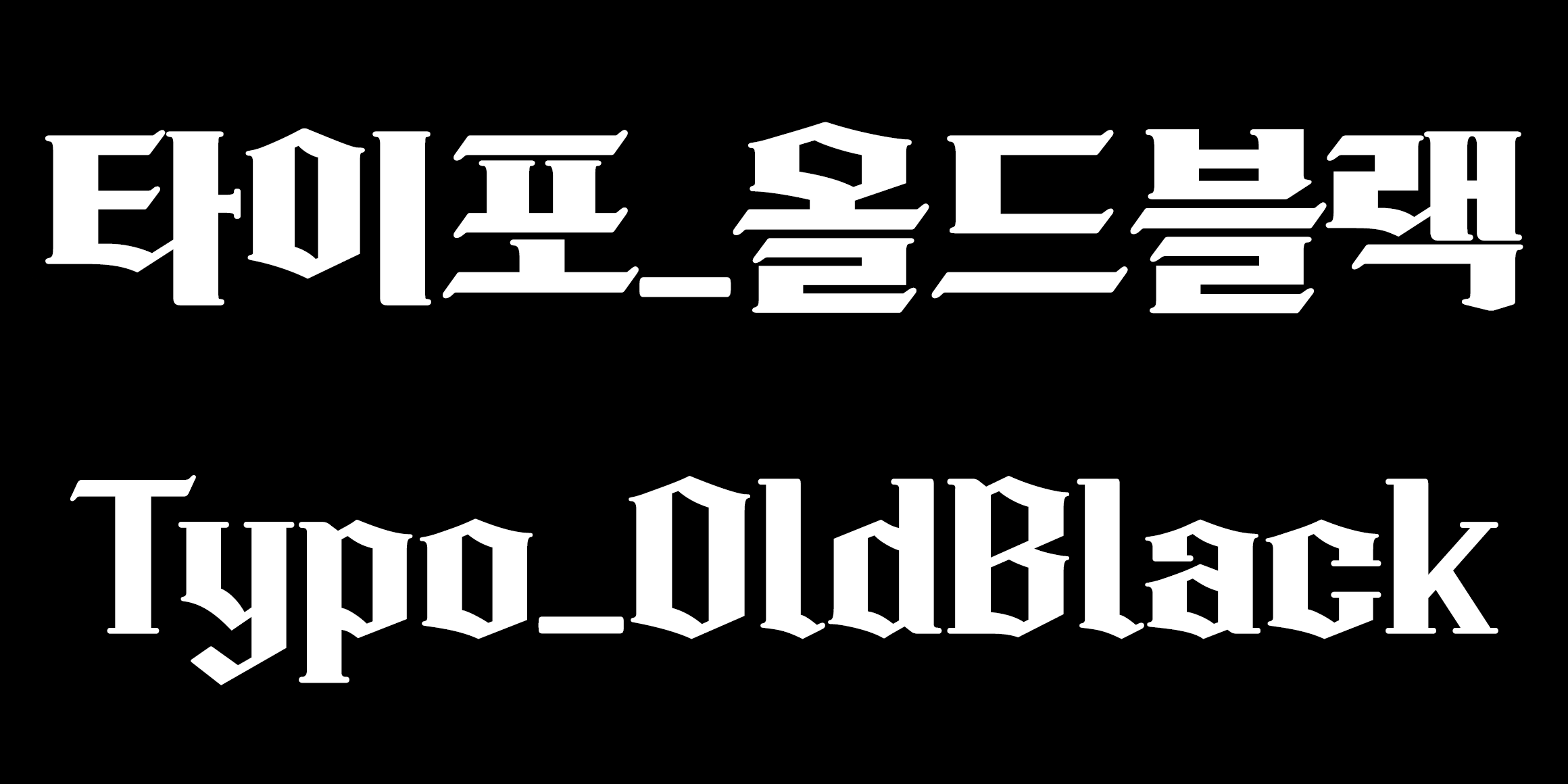
Each letter, such as ㅅ, ㅇ, and ㅈ, has a unique shape and sharpness becomes the point, creating tension and a strong impression.
It is recommended to use it for headlines as it attracts attention due to the change in thickness of horizontal and vertical strokes.